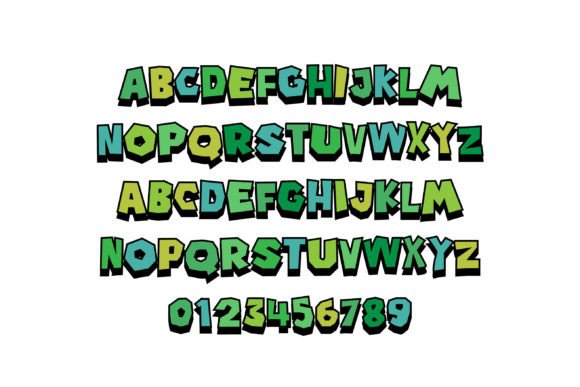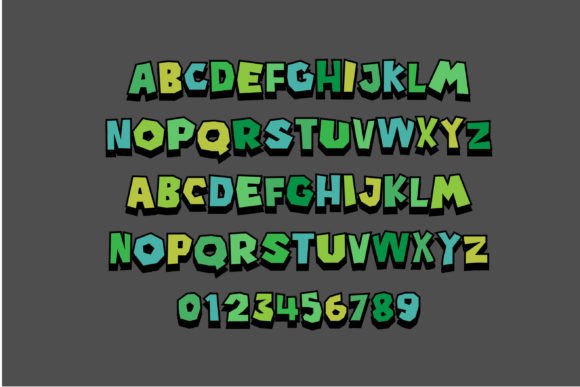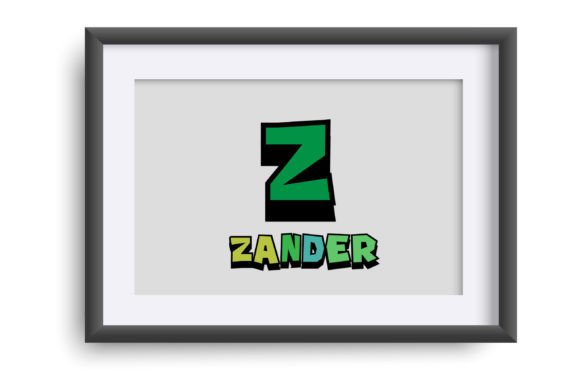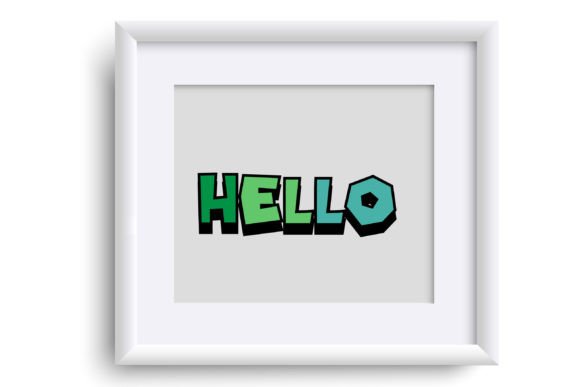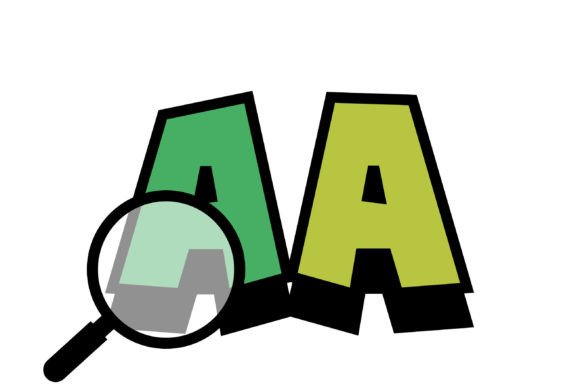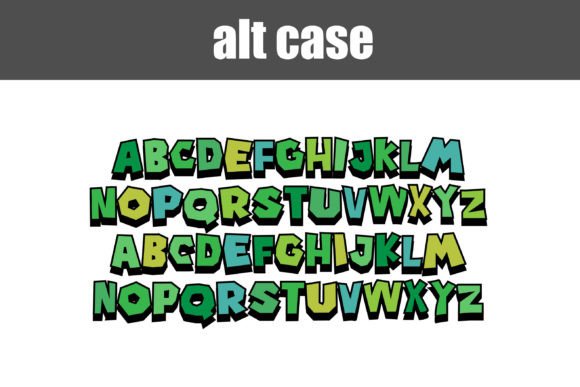
Introduction to Marvel March Font
As a designer, you know the feeling of being stuck in a creative rut. You’re working on a project, but something’s missing – a spark, a pop of color, a dash of whimsy. That’s where the Marvel March Font comes in. This modern and unique font is the perfect addition to any design project, especially around St. Patrick’s Day.
With its playful and colorful shapes, the Marvel March Font adds a fun and festive touch to any project. Whether you’re working on a digital design, a print project, or even a social media post, this font is sure to bring a smile to your face and your clients’. And the best part? It’s PUA encoded, making it easy to access all of the glyphs and swashes you need to create a high-quality design.
Key Features of Marvel March Font
- High-quality font designed for creative projects, perfect for adding a touch of superhero flair.
- Unique characteristics include bold lines, dynamic lettering, and a mix of serif and sans-serif elements, giving it a distinct and eye-catching appearance.
- Designed to be versatile, the Marvel March Font is suitable for a wide range of creative projects, from logos and branding to posters and social media graphics.
Honest Review: Marvel March Font
As a designer, I’m always on the lookout for high-quality design resources to elevate my creative projects. The Marvel March Font caught my attention with its unique blend of modern and vintage elements. One of the standout features is its transparent background, making it a versatile choice for any project.
What works well about the Marvel March Font is its ✨ bold and eye-catching design. The font’s intricate details and varied font styles make it perfect for adding a touch of sophistication to your design. It’s also incredibly easy to download and use, with a free version available for instant access.
Some limitations to consider are:
- ⚠️ Limited character set, which may not be suitable for lengthy text
Overall, the Marvel March Font is a solid addition to any designer’s toolkit. Its unique design and high-quality graphics make it a great choice for creative projects that require a touch of personality. While it may have some limitations, the free download and transparent background make it a valuable design resource to explore.
Getting the Most Out of It
To maximize the potential of Marvel March Font, experiment with different font sizes, colors, and combinations. This will help you create a visually appealing design for your creative project.
Impact Font is similar to Marvel March Font in its bold and edgy feel, but it’s more straightforward and lacks the playful nuances of the latter. It’s a good alternative for designs that require a strong and assertive tone.
Q: Is the Marvel March Font suitable for digital or print design?
The Marvel March Font is a versatile design resource that can be used for both digital and print design projects. Its high-quality design and transparent background make it an excellent choice for logos, branding, and creative projects. However, for print design, it’s essential to check the font’s legibility and scalability at various sizes and resolutions.